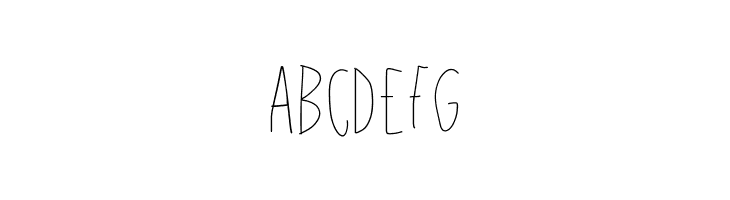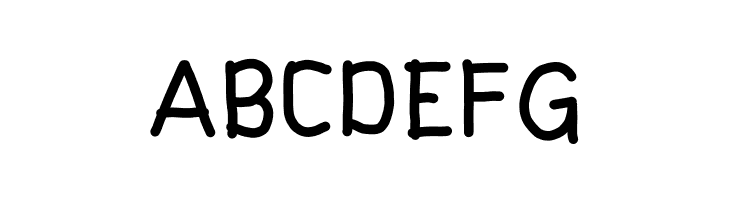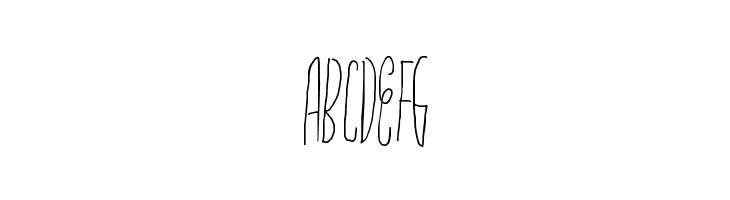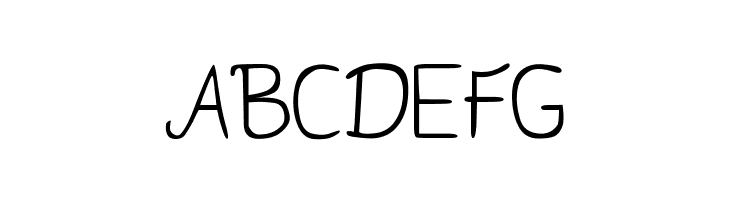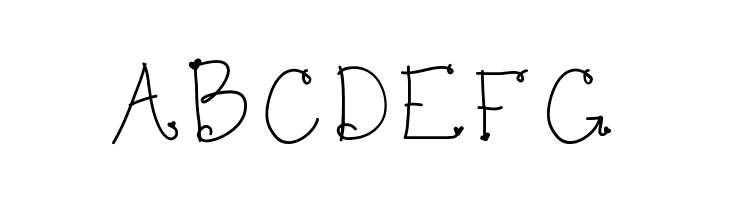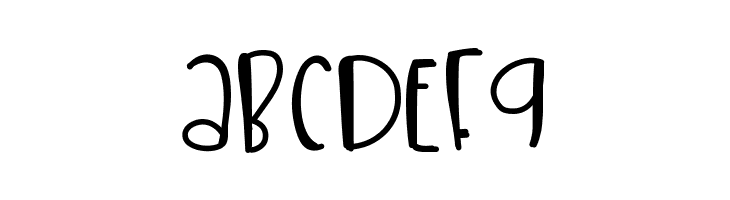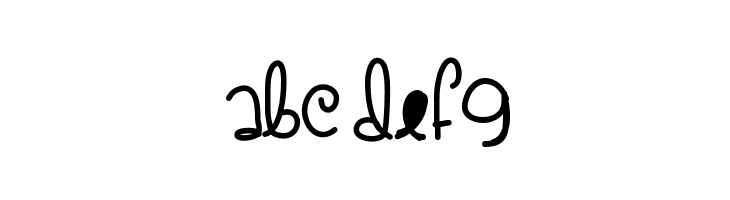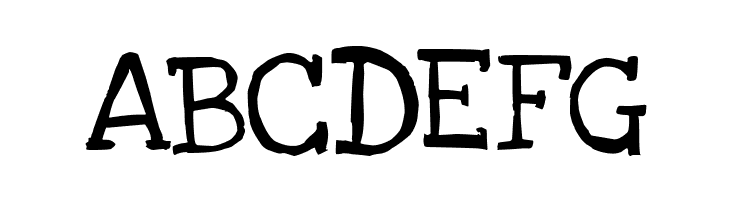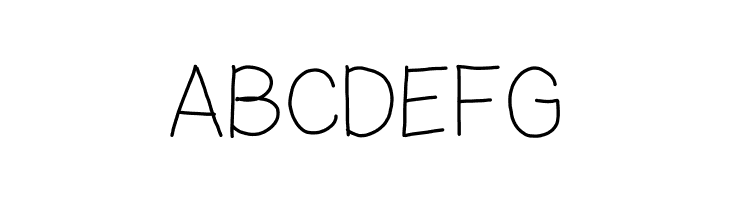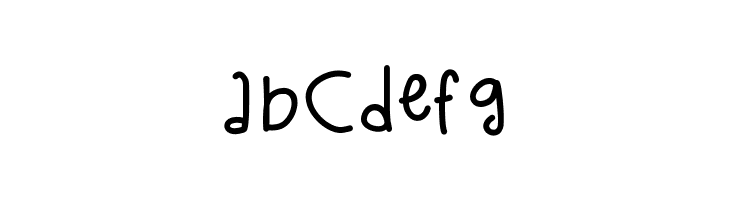
A whimsical, handwritten font with tall, narrow letters and a playful style.
A playful, hand-drawn font with smooth, flowing lines and a whimsical style.
A whimsical, decorative font with heart and arrow motifs, perfect for playful designs.
A playful, handwritten font with bold strokes and a dynamic, casual style.
A playful, handwritten font with bold, rounded characters and a whimsical style.
A playful, hand-drawn font with bold, irregular strokes and a casual vibe.
A playful, handwritten font with a casual and whimsical style.
A playful, hand-drawn font with bold, irregular shapes and a whimsical style.
A bold, three-dimensional font with a playful and dynamic style.
A playful, outlined font with quirky, exaggerated serifs and a whimsical style.
A playful, hand-drawn font with irregular, whimsical characters.
A playful, bold font with rounded strokes and a dynamic, friendly appearance.
A playful, hand-drawn font with rounded, irregular shapes and a casual vibe.
A playful, informal handwritten font with irregular strokes and a casual feel.
A bold, playful font with rounded, slightly irregular shapes.
A bold, angular, and geometric font with a playful and dynamic style.
A playful, handwritten font with a casual and creative vibe.
A bold, playful font with thick outlines and a hand-drawn style.
A bold, edgy font with a punk rock, cut-and-paste aesthetic.
A playful, hand-drawn font with a sketch-like, whimsical appearance.
A bold, handwritten font with a playful, comic-like style.
A playful, handwritten font with a casual and friendly vibe.
A playful, hand-drawn outline font with a cartoonish style.
A playful, casual handwritten font with a friendly and informal style.
A playful, whimsical handwritten font with irregular strokes and a casual vibe.
A playful handwritten font with irregular strokes and a whimsical style.
A playful, casual handwritten font with dynamic strokes and a friendly appearance.